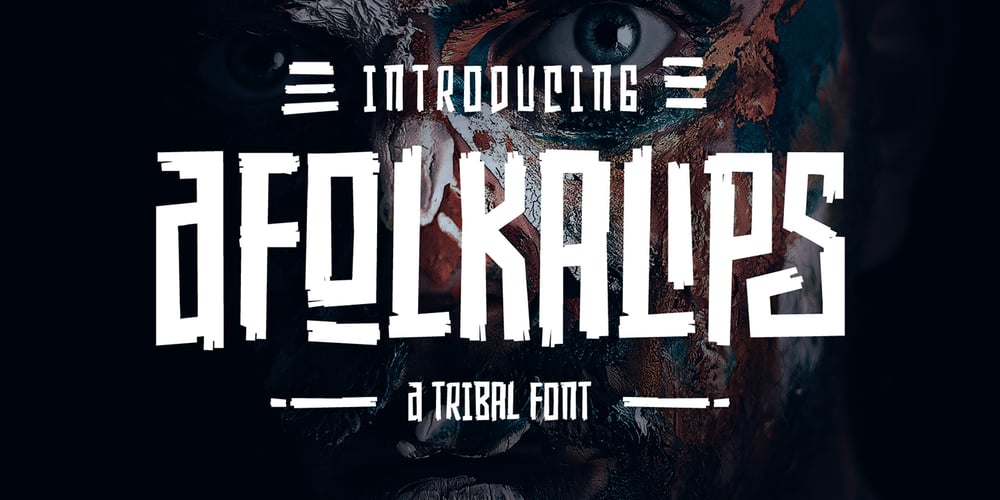
Afolkalips Font Family was designed by Ahmad Ramzi Fahruddin and published by Arterfak Project. Afolkalips contains 2 styles and family package options. Introducing ‘Afolkalips’ a tribal display font. Inspired by hinterland culture in the world, especially Papua Tribe, Indonesia. The Papuan Culture has many native tribes based on their location, culture and different ancestors. The equation is, they have a culture of decorating the body with paint from plants. The motives are also diverse, but with the characteristics of firm lines. In addition to various line motifs, Papuan hinterland people also explore colors that distinguish one tribe from another. You can see it on face decoration, as well as their body parts. The tools they used to paint their faces were usually with wood or leaves. Clear lines are etched, producing a natural, rough and authoritative form. It is this form that inspires us in designing the ‘Afolkalips’ typeface. All-capitals font with strong strokes that very recommended for headline or display on a traditional theme. Complete with 50+ custom ligatures that give you more variations. Also featured with 28 accents. This font also has ornament swashes to give your design more tribal looks, you can use the swashes as a frame or decoration. Suitable for your design such as poster, flyer, t-shirt design, logo, magazine, signage, or billboard. Afolkalips is a minimalist-joyful font which is flexible to apply in bright theme or elegant style. What you’ll get : – Uppercase – Lowercase – Numbers – Punctuations – Symbols – Stylistic alternates – Ligatures – Accents Hope you like it! Thank you for your support and happy designing!